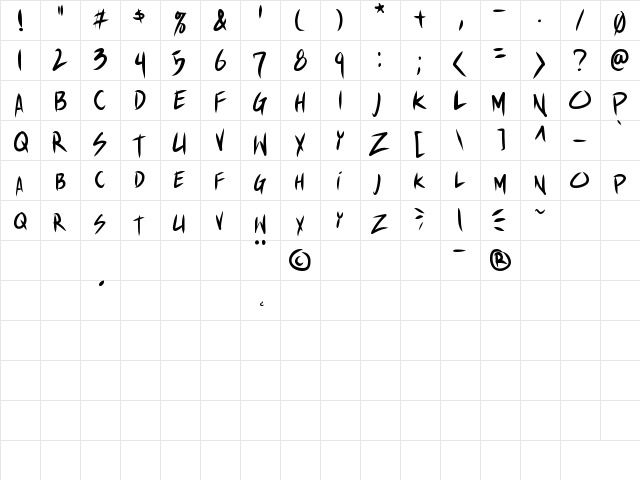
Shin Akiba Punx Regular
| Designer | Andeh Pinkard |
Design Context for Shin Akiba Punx Typeface
Shin Akiba Punx is a composed and adaptable typeface that performs quietly and consistently across a wide range of design contexts.